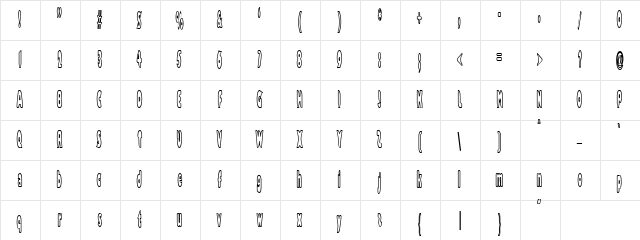
Bazzomba Regular
Design Context for Bazzomba
Bazzomba is a composed and adaptable typeface that performs quietly and consistently across a wide range of design contexts.